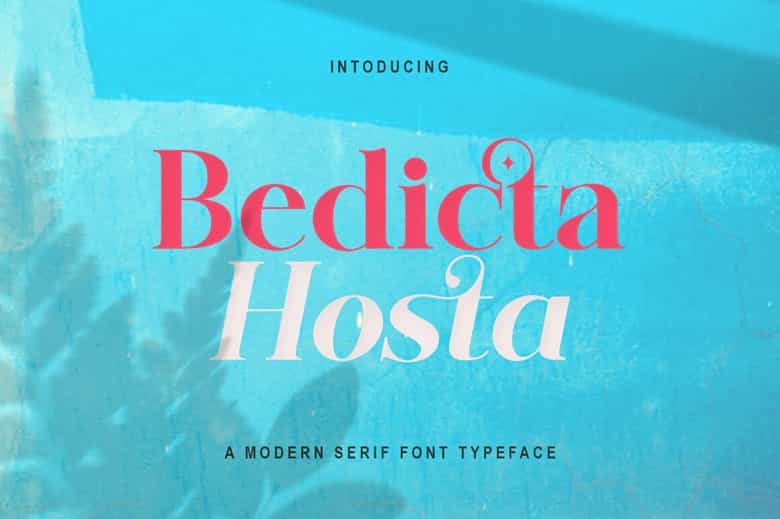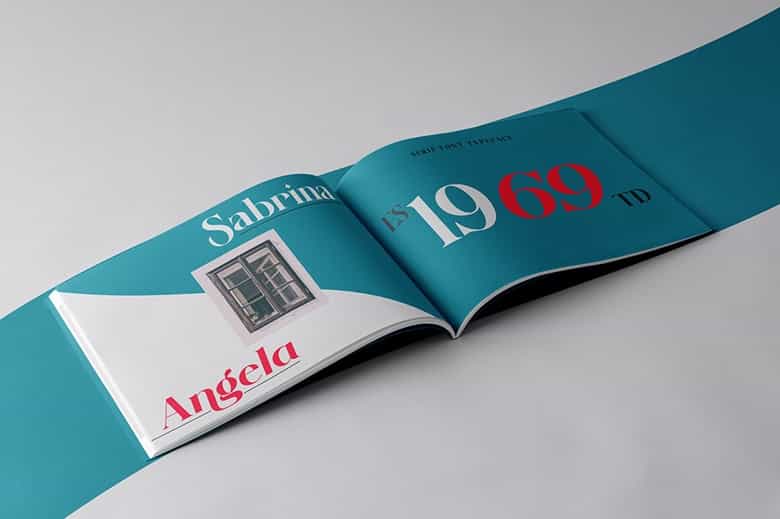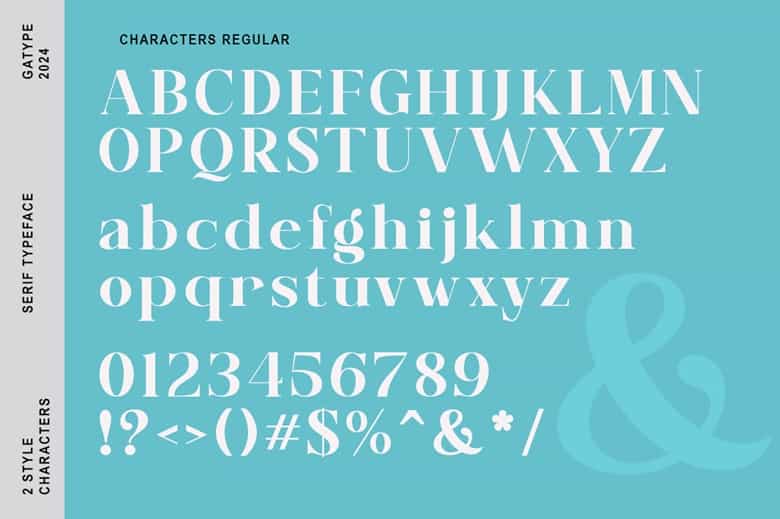
Bedicta Hosta is a modern serif typeface that is designed with elegant and traditional looks. This font has dividers attached to the borders of the letters which add more professional and luxurious look to the text. Each letter is crafted to the last detail and in proper symmetry, such that this typeface is suitable for, logos, magazine for typographic works, or formal invitations.